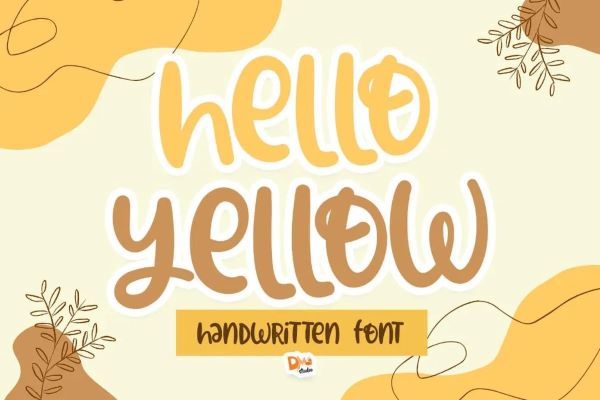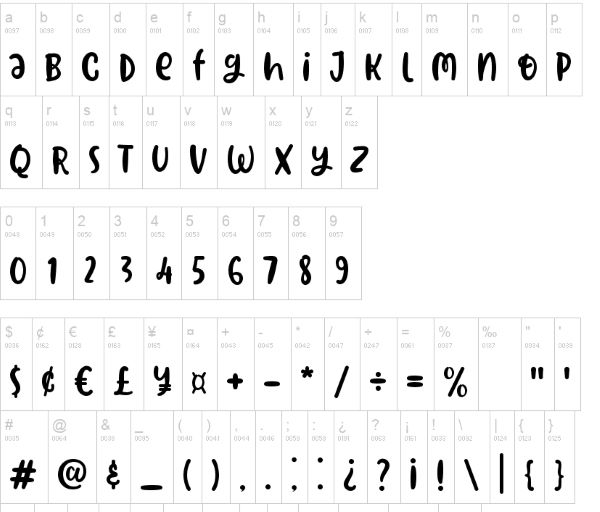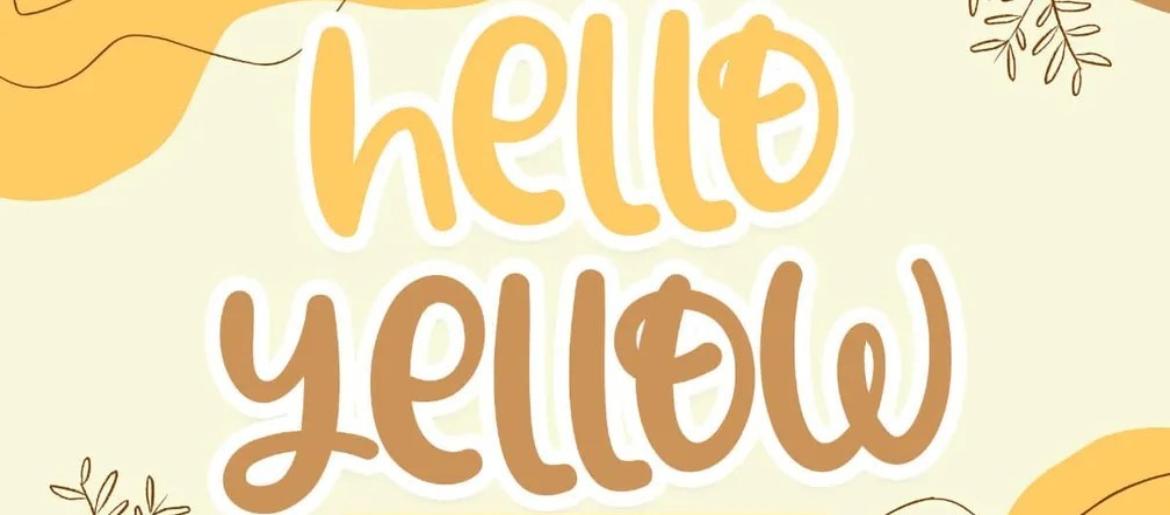
Hello Yellow Font
Hello Yellow Font brings a bright, uplifting spirit to typography with its cheerful and expressive design. Its playful letterforms create a warm, friendly mood, making it ideal for branding, packaging, posters, and creative visuals. This font adds a joyful tone to projects that aim to feel energetic, welcoming, and full of positive character.
➤ Font Name: Hello Yellow
➤ Designer: DM Letter Studio
➤ Style: Handwritten